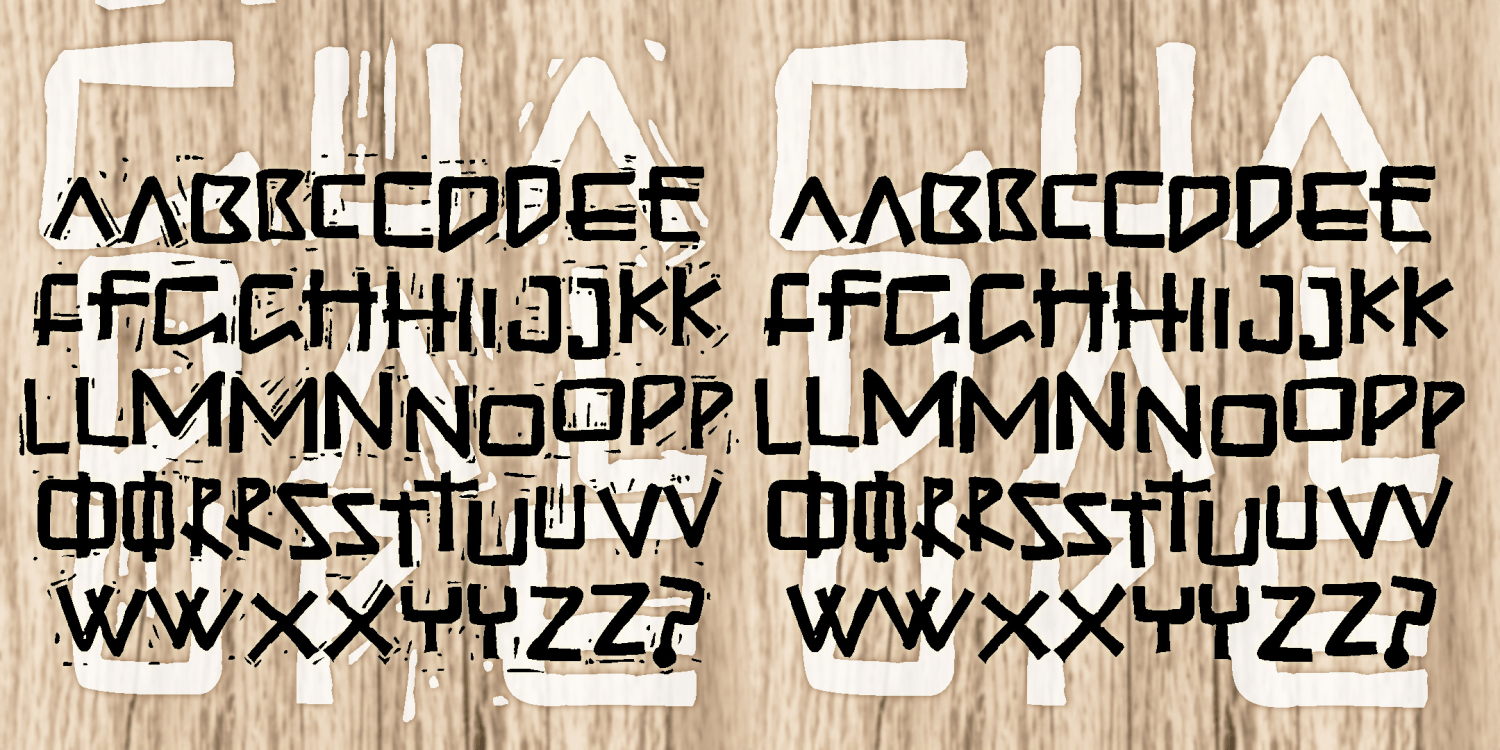
Medicine Eagle
MEDICINE EAGLE is a collaboration with my friend, Jason Martinez, an artist and teacher. Jason is inspired by his love of Southwest Pueblo pottery patterns and tribal art. He is a registered member of the Taos Pueblo and takes inspiration from his heritage. I started with 8 letters from Jason and developed the rest. Medicine Eagle was originally released as Bluelakehawk.